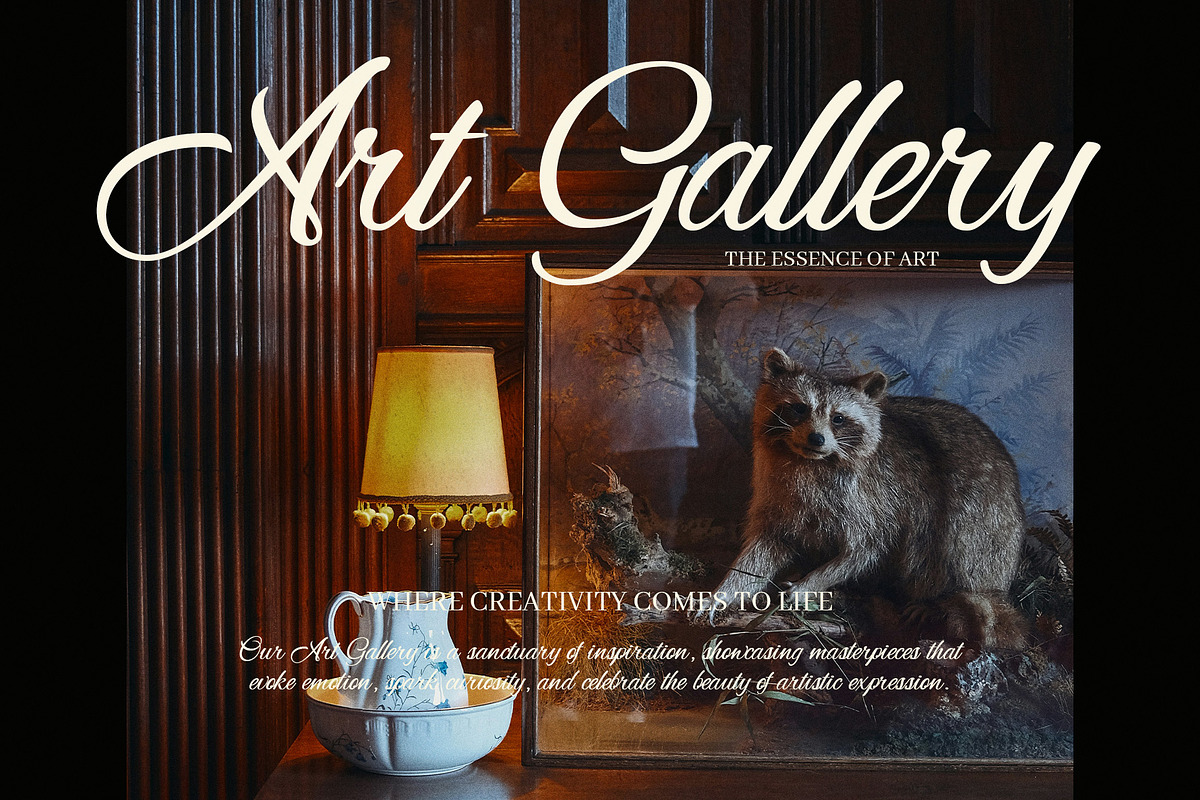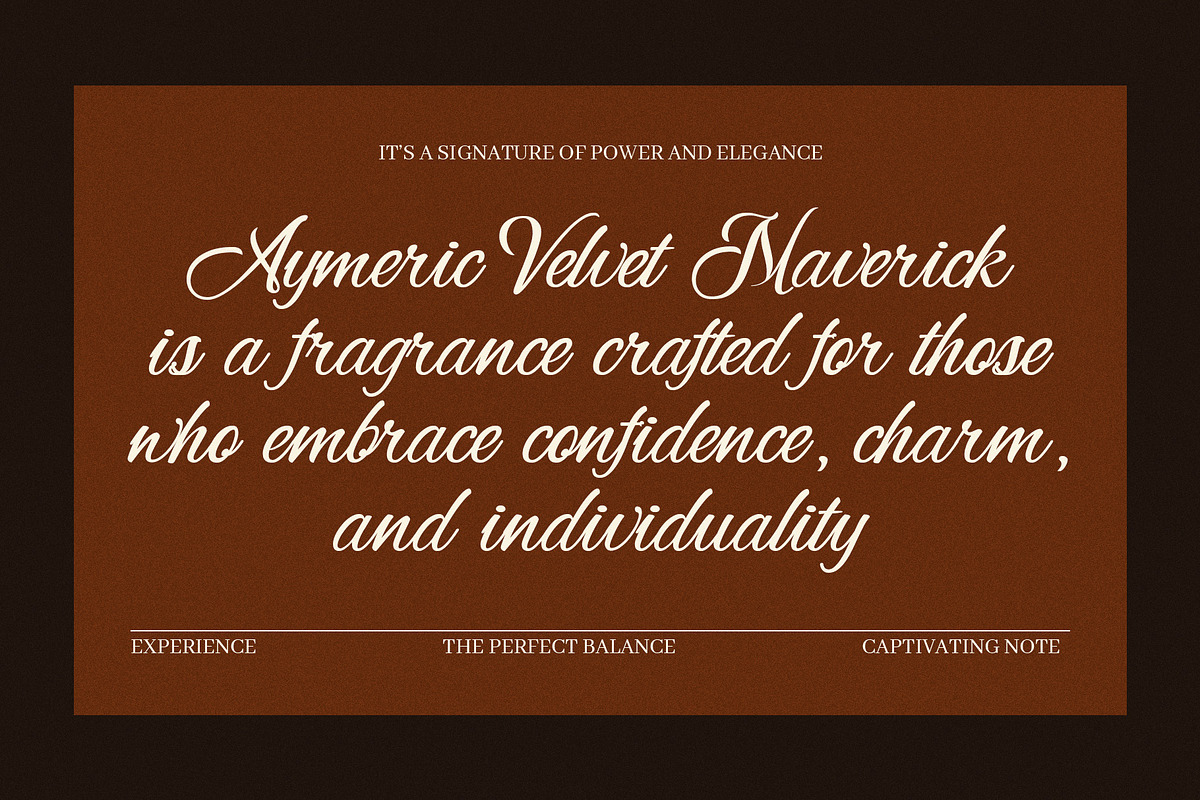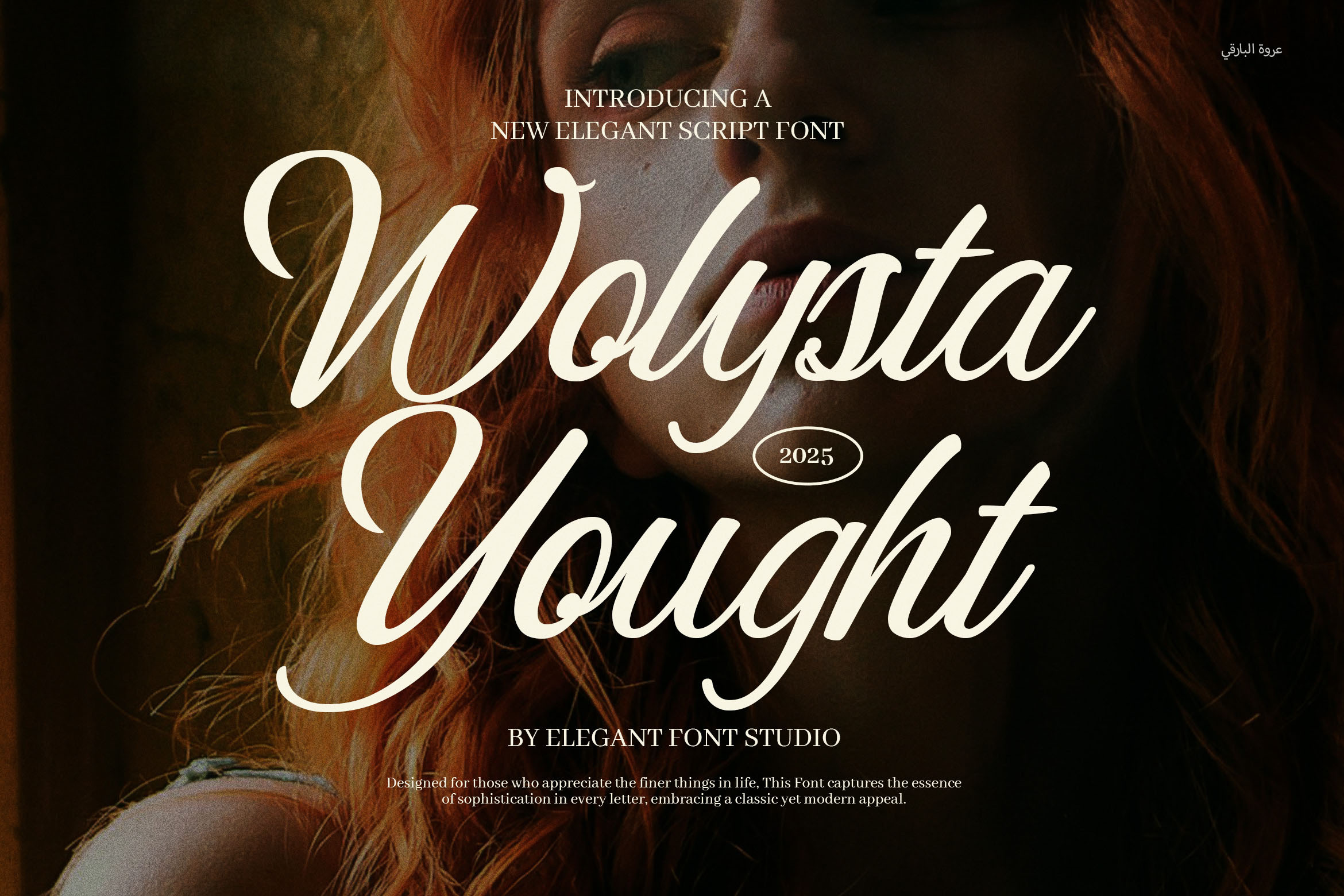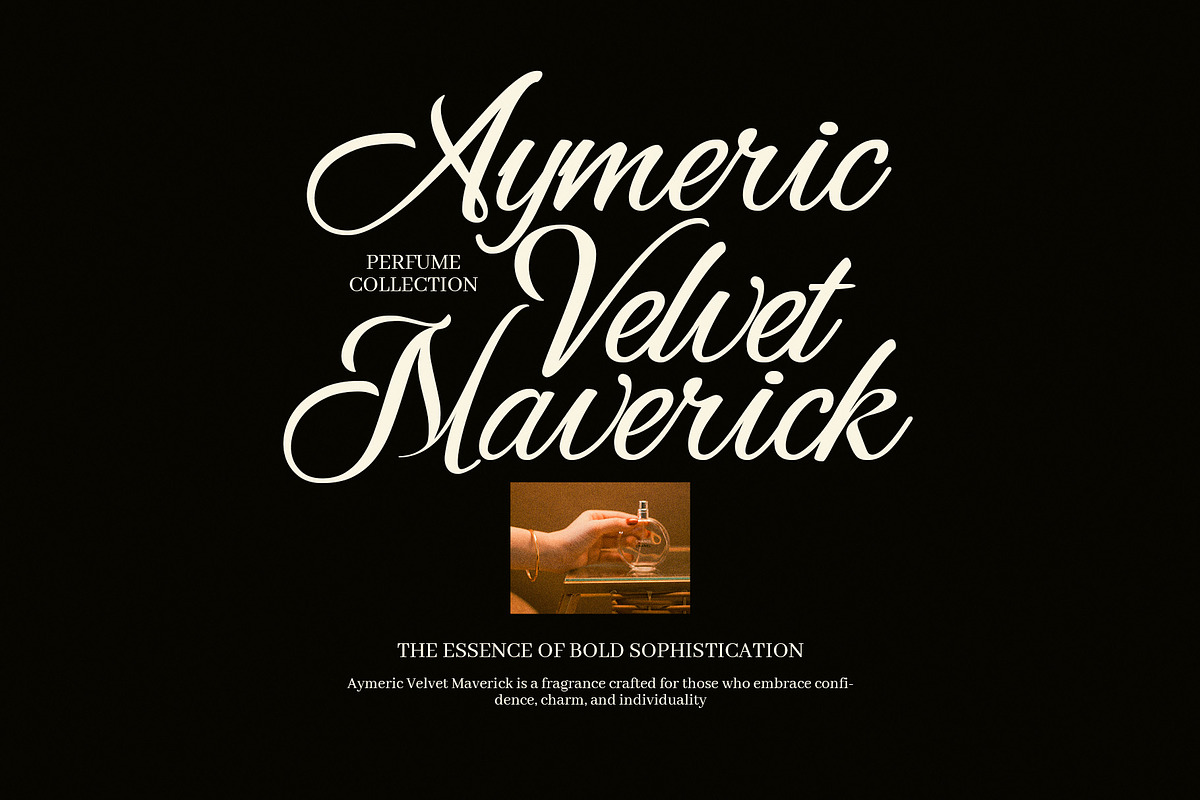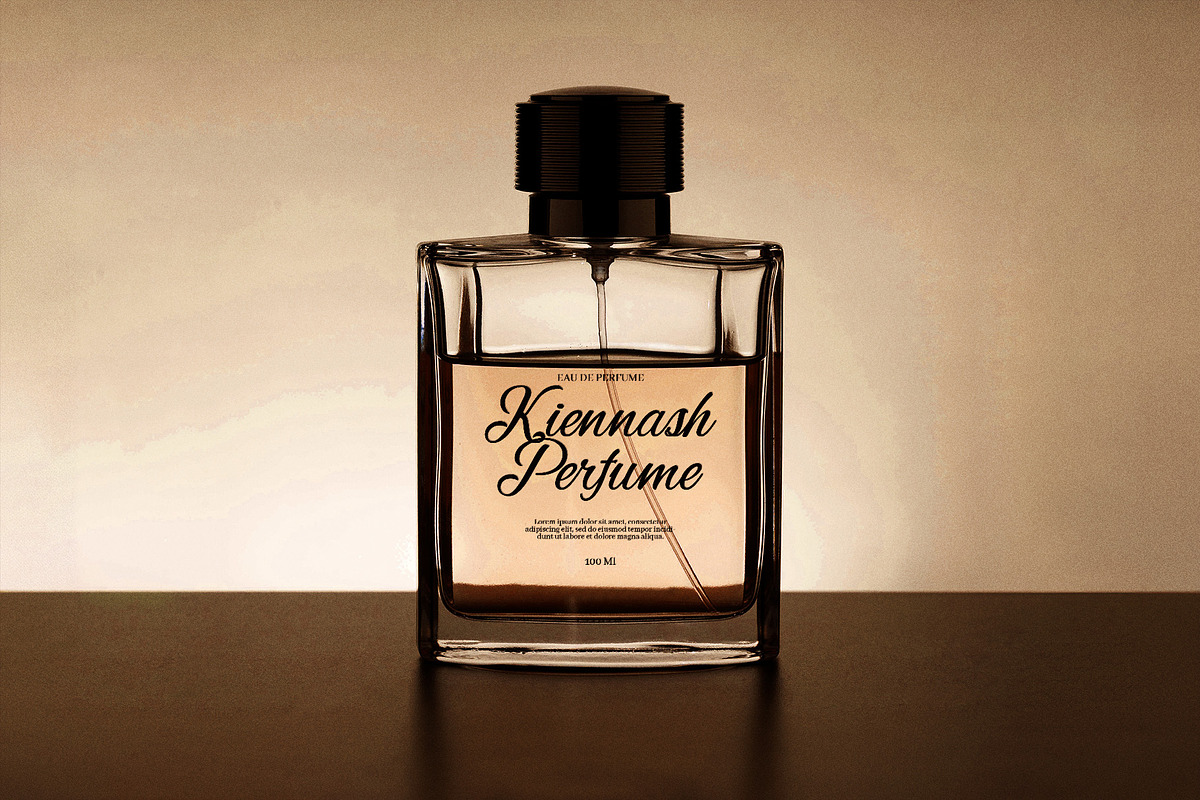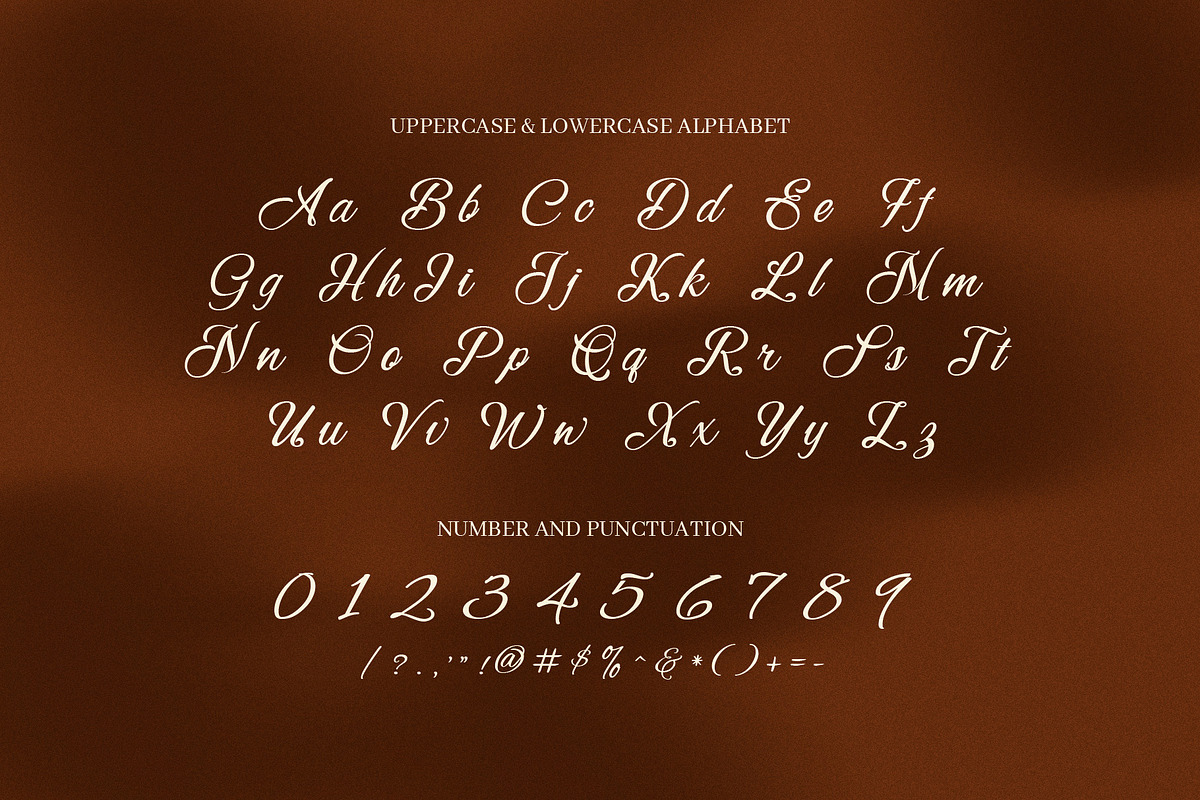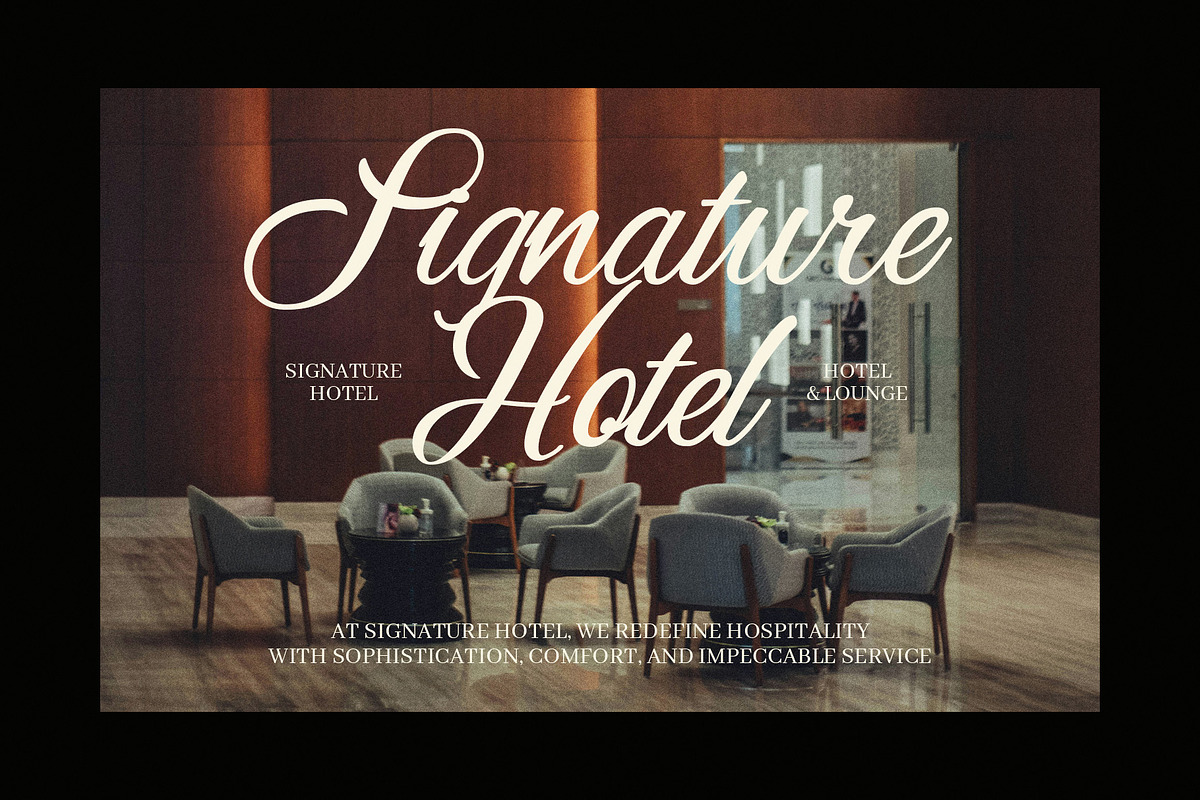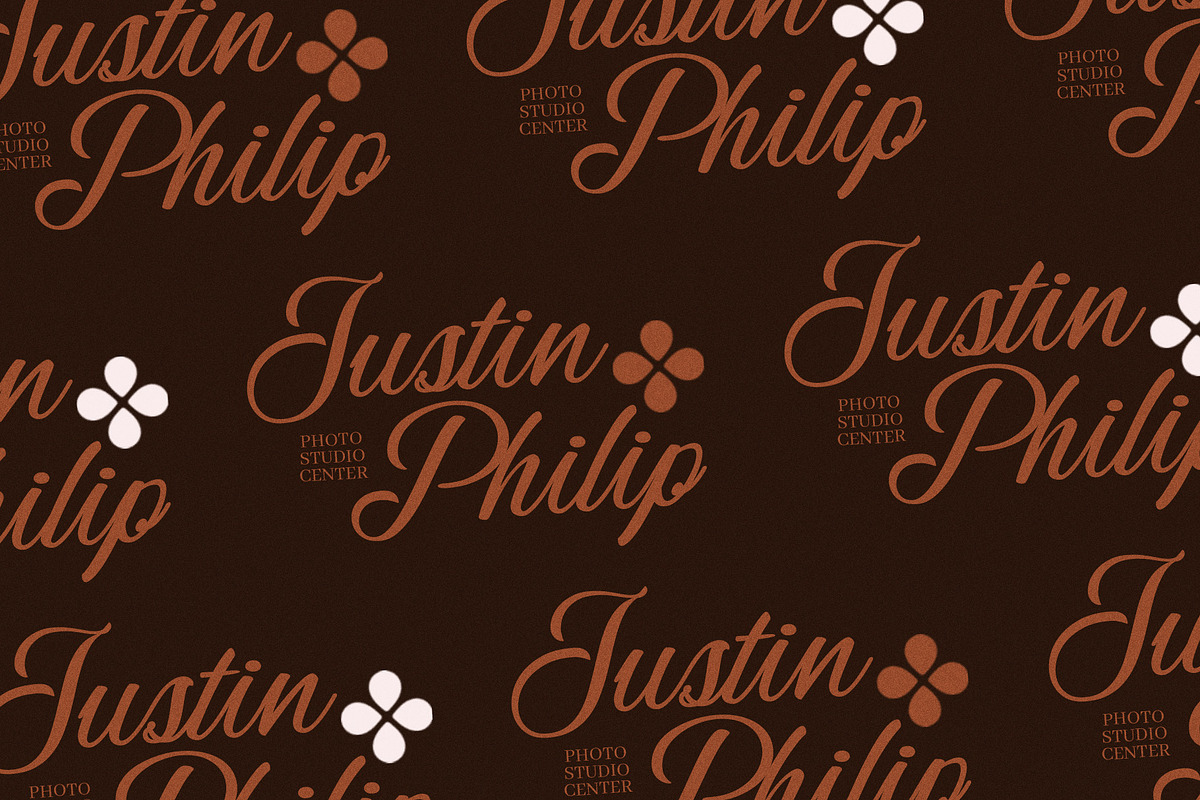
Wolysta Yought Script Font
Introducing Wolysta Yought Script Font, a beautifully elegant and classy script typeface designed to enhance your most refined projects. With its flowing strokes, graceful curves, and rich calligraphic detail, Wolysta Yought brings a luxurious and timeless aesthetic to your creative work. Whether you're designing for weddings, branding, or digital media, this font adds an artistic and upscale touch.
Wolysta Yought features a full set of sophisticated ligatures and alternate characters, making it easy to create custom looks in seconds. Its elegant style fits seamlessly into a wide range of design uses—from logos and wedding invitations to business cards, posters, covers, magazines, and website headers.
Elegant and flowing handwritten style
Beautiful ligatures and calligraphy alternates
Ideal for logos, invitations, covers, branding, and magazines
Great for websites, packaging, and music albums
Readable yet artistic script with a professional tone
With a balance of beauty and function, this font is not only stunning but also practical. It’s a favorite for creatives who want their design to speak with confidence and charm. Elevate your next project with Wolysta Yought Script Font, where elegance meets creativity.